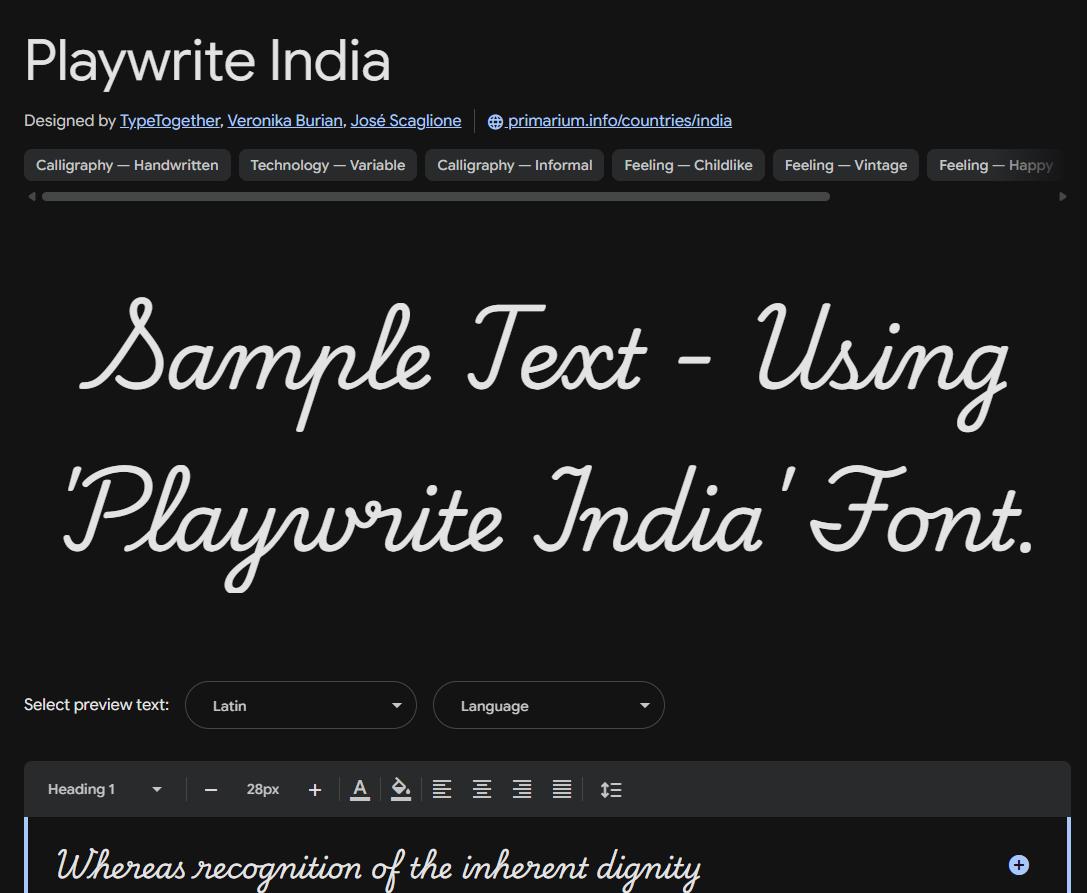
Playwrite India, a sophisticated pedagogical tool developed by Veronika Burian and José Scaglione of TypeTogether, redefines the intersection of digital typography and regional handwriting education through its streamlined single-axis variable architecture. By isolating the weight axis for fluid interpolation, this typeface family meticulously replicates the diverse ductus and stroke sequences required by various Indian state educational standards, ensuring that legibility and script authenticity are maintained across a wide range of optical weights. This project leverages advanced OpenType features to harmonize traditional cursive letterforms with contemporary screen rendering requirements, providing a semantically robust solution for developers seeking to implement localized, high-fidelity script models in modern instructional environments.
The Playwrite India font family represents a transformative shift in educational typography, utilizing advanced variable technology to synthesize the organic irregularities of informal, handwritten calligraphy into a high-performance digital asset. Engineered to mirror the specific pedagogical scripts of the region, this typeface achieves a unique rugged texture that balances a vintage academic aesthetic with a vibrant, playful energy. By integrating fluid interpolation axes, the font family preserves the happy and childlike spontaneity of natural penmanship while maintaining the semantic integrity required for modern web environments. This intersection of nostalgic, handwritten motifs and contemporary font engineering allows Playwrite India to deliver an evocative, human-centric user experience that remains both technically optimized and emotionally resonant.
Playwrite India, engineered by TypeTogether as a part of a global pedagogical project, is fundamentally unsuitable for high-density financial data, legal contracts, or technical engineering schematics where character disambiguation and a neutral tone are critical. Because the typeface is built on the variable axis of regional school handwriting models, its fluid stroke modulation and idiosyncratic joins prioritize the kinetic flow of cursive acquisition over the rigid horizontal rhythm required for high-frequency information processing. In environments like medical labeling or aerospace documentation, the organic terminal shapes and non-uniform glyph widths inherent in Veronika Burian and José Scaglione's design would introduce excessive cognitive friction, failing to provide the standardized optical clarity and structural stability found in professional-grade grotesque or neo-grotesque families designed for rapid scanning.
The Playwrite India family encompasses a wide array of regional scripts including Devanagari, Bengali, Gujarati, Gurmukhi, Malayalam, and Tamil to reflect localized handwriting traditions. By integrating specific Unicode blocks for Indic scripts, the family ensures typographic fidelity across the subcontinent's distinct linguistic landscapes and character shapes.
The Playwrite India project is built using modern font technology and is often distributed as variable fonts to allow for seamless weight adjustments. Leveraging the "wght" axis within a single VF file reduces HTTP requests while maintaining precise control over the stroke thickness for diverse screen resolutions.
This font family is specifically designed to emulate regional primary school handwriting styles, making it an ideal tool for educational materials and worksheets. Its adherence to the Joiner script logic provides a pedagogically sound framework for developing muscle memory in early learners through consistent glyph construction.
The family typically offers a range of weights from ExtraLight to Regular, providing flexibility for different instructional layouts and emphasis. Statistical analysis of the font's design space reveals a standardized range from 100 to 400, optimized for maximum legibility in high-contrast educational environments.
Playwrite India focuses on specific handwriting models that often blend cursive connections with clear, legible letterforms used in school systems. The integration of OpenType "calt" features enables the seamless transition between isolated and joined characters, mimicking authentic pen-to-paper dynamics.
While primarily a display and educational font, it can be used for body text where a personal or instructional tone is required for the user experience. High x-height values and generous kerning tables ensure that the font maintains a low Bézier error rate during rasterization at smaller pixel sizes.
The collection supports a vast array of Indian languages through dedicated sub-families for Devanagari, Latin, and various regional Indic scripts. Extensive glyph coverage for the Latin-1 Supplement combined with Indic-specific conjuncts ensures full compliance with modern UTF-8 encoding standards for global interoperability.
The vector outlines are meticulously drawn to ensure sharp reproduction in both digital formats and high-resolution print media. Its robust PostScript Hinting and high UPM (Units Per Em) count prevent contour distortion when outputting to professional-grade 1200 DPI laser printers.
This handwriting family pairs exceptionally well with clean, neutral sans-serif fonts to create a balanced visual hierarchy in design projects. Combining the organic stroke of Playwrite with a geometric grotesque like Montserrat creates a "humanist-mechanical" contrast that enhances information architecture.
Yes, the font utilizes advanced OpenType features to substitute glyphs based on their position within a word for a more natural look. The implementation of complex lookups within the GSUB table allows for dynamic entry and exit stroke modifications that replicate the fluid velocity of manual handwriting.